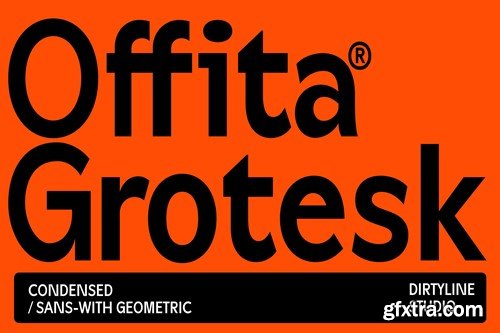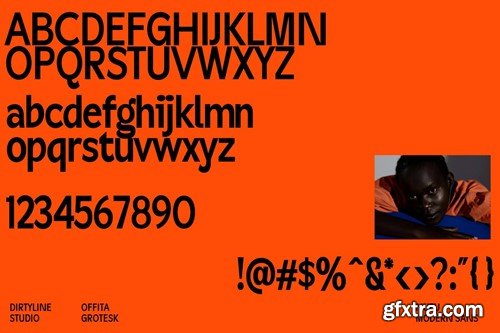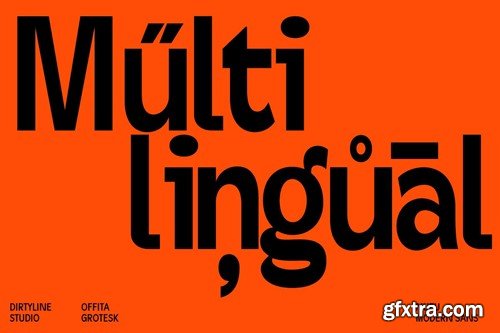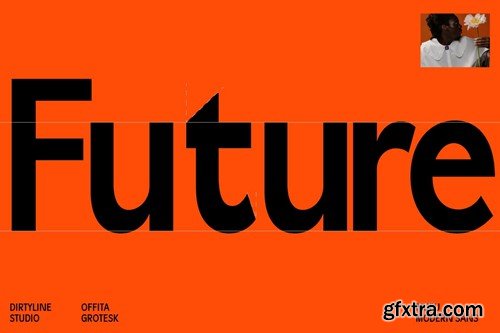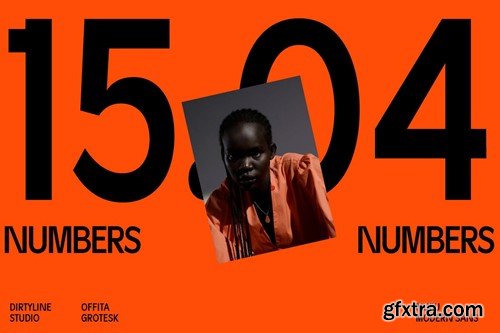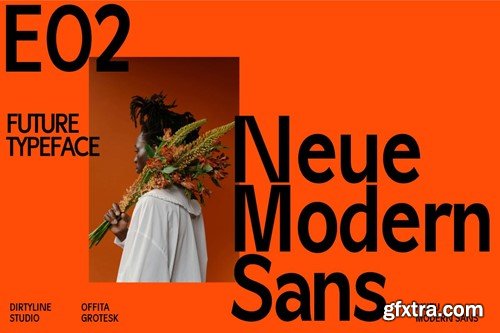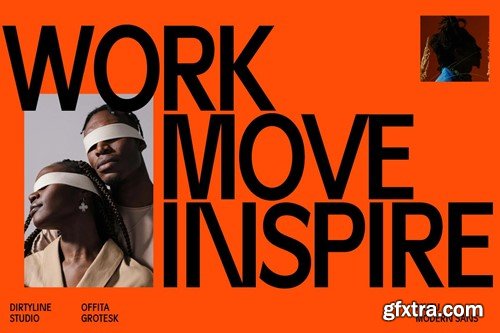
Offita Modern Sans Branding Font
Offita is a contemporary sans serif that offers a straightforward interpretation of the English humanist sans, gently blending rigid tones over a warm structure. This simple and carefully crafted typeface, with traits flirting with geometry, becomes a powerful workhorse. Its versatility makes it ideal for both paragraphs and bigger typesettings, a great choice for branding, signage, editorial, and more. ** Offita features**: ——— Offita Includes :